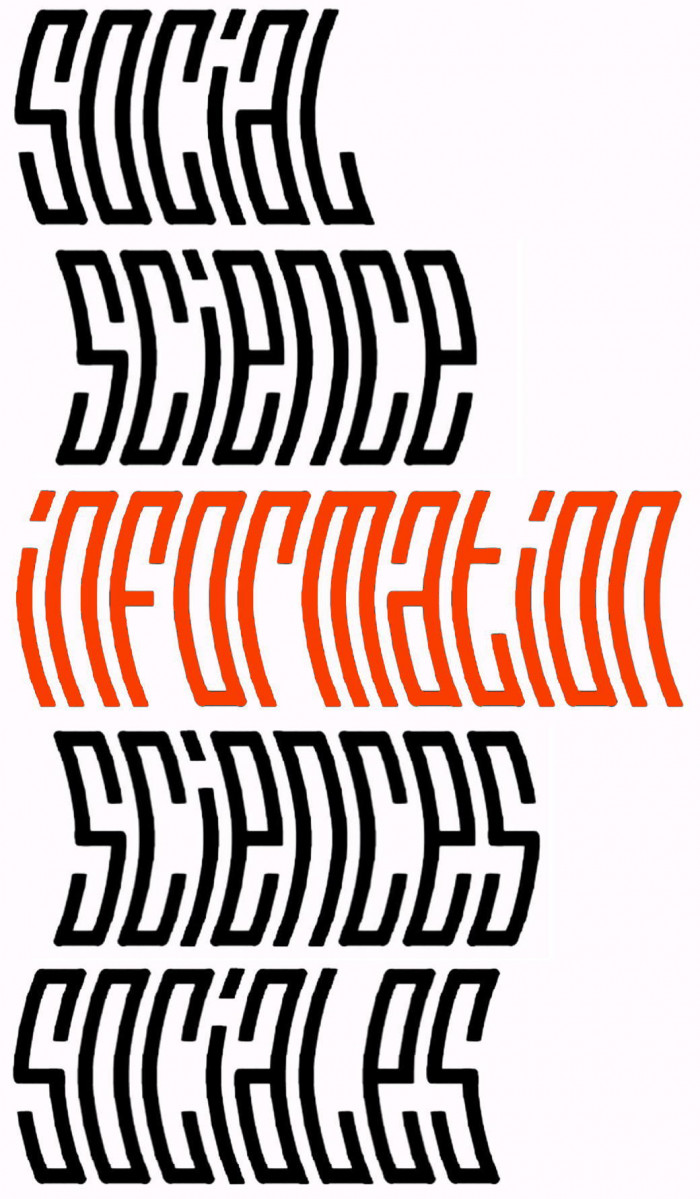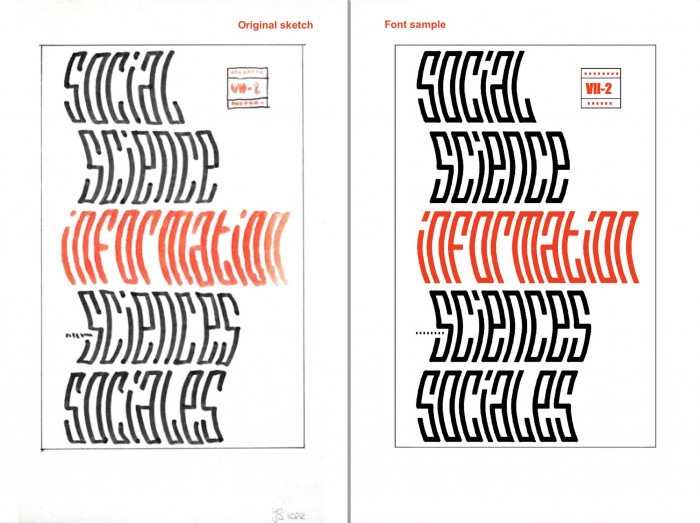
• This is my little contribution to the fantastic recovering universe
called LETTERS OP MAAT by the great @Sed4tives about the typographic world of the dutch artist and typographer Jurriaan Schrofer. Btw, I sincerely apologize to @Sed4tives for the undue delay and the time it took to publish this exciting addition to his magnificent series (I'm sure he thought I'd forgotten, didn't he, comp4ñero?). Hope you like and enjoy these two fonts in one.
... The work still in progress (diacritics in the oven)...
Oh my. This is amazing. I can't believe you were able to build this in Fontstruct. So incredibly impressive!
@Sketckbook B: Thank you so much! You're going to make me blush with your comment. What you see here is just the result of putting a little more work into the design of each letter (and maybe that's why it took me so long to post it). Despite that, the curves aren't as smooth as I had originally imagined, but I think they can be improved quite a bit by using a program like Glyphs, for example, to adjust and remove rough edges. I'm glad you liked it.
Wonderful!
This looks pretty nice. I imagine tubes or pipes when I look at this.
Excellent job and so effective in the sample!
In then In (Aa Bb Cc Hamburgefontiv 0123456789) i see over the Letters Curve is Dont like of your do...But i know is the Lowercase Curves but like It!
I love it!
Trippy!
I've been very bussy lately, but I certainly haven't forgotten about this project. And you obviously nailed it my friend. Great display of your technical mastery.
I remeber me asking for your permission to salvage some custom bricks from a similar looking Fontstruction of yours in order to utilize those in some other of my Schrofer revival endeavors back around that same time you forged the idea for this Fontribution.
But I have yet to completed mine!
Anyway,
I love that you have taken the time and effort to colaborate on the LETTERS OP MAAT series by crafting this wonderful guest entry.
its very when you scroll up and down; I like it!